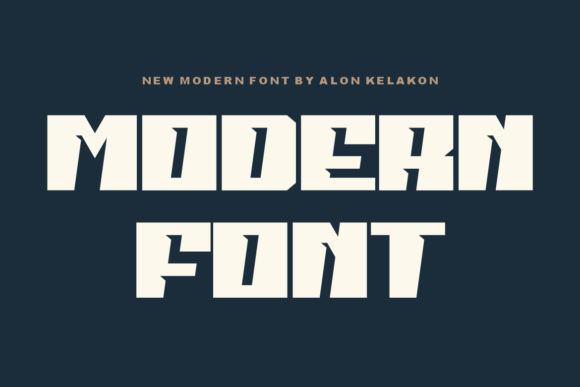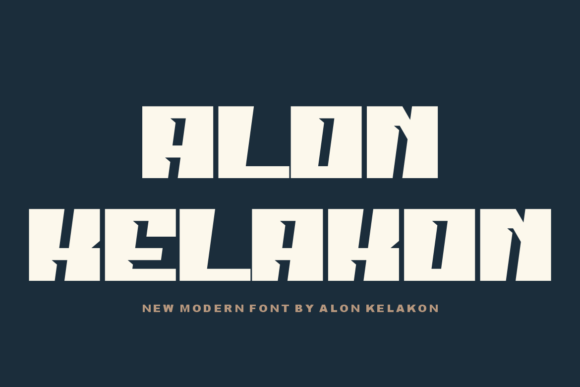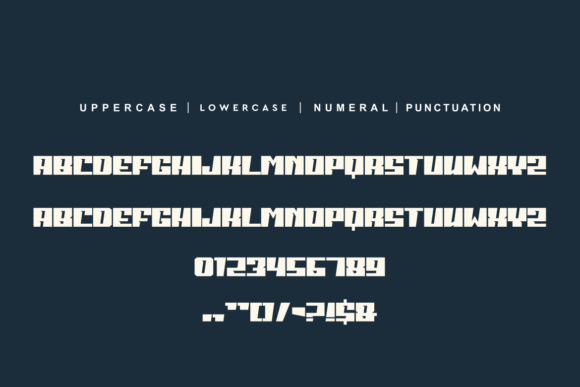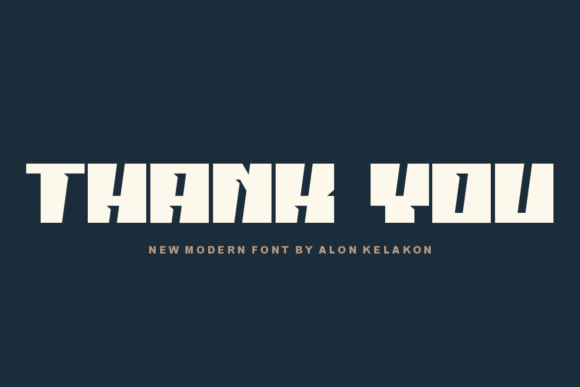
Introduction to Rasegon Font
Have you ever stared at a blank canvas, eager to bring a creative project to life, but struggling to find the perfect font to set the tone? I know the feeling. It’s like searching for a missing piece of a puzzle, and it can be frustrating.
But what if I told you that I’ve discovered a game-changing font that’s about to revolutionize your design process? Say hello to Rasegon Font, a high-quality, sans serif font that’s perfect for labeling, clothing, movie scenes, and more. With its clean and modern aesthetic, Rasegon Font is a valuable resource for designers looking to elevate their creative projects. Plus, with a transparent background, you can easily customize it to fit your design needs.
Key Features of Rasegon Font
- This font features a unique, bold style with a transparent background, allowing for versatile usage in various design applications.
- The font size is scalable, making it suitable for a wide range of applications, from small text to large headings.
- This font is ideal for graphic designers, artists, and creatives seeking a distinctive and modern design element for their projects.
Honest Review: Rasegon Font
I recently had the chance to work with the Rasegon Font, a free download that’s been making waves in the design community. As a designer, I was excited to see how it would perform on a creative project.
One of the things that stands out about the Rasegon Font is its high quality. The font is crisp and clear, making it perfect for any design resource that requires a clean and modern look. I was particularly impressed with how well it handled text on a transparent background – the font really shines in this application.
- High-quality font that’s perfect for modern designs
- Handles text on transparent backgrounds with ease
- Not as versatile as some other fonts, may not work well for more traditional designs
- Some users may find the font too minimalist, lacking in personality
Overall, I was impressed with the Rasegon Font. While it may not be the perfect font for every project, it’s a great resource for designers who want a high-quality, modern look without breaking the bank. With a little creativity, the Rasegon Font can really elevate your design projects.
Introduction to Rasegon Font
Rasegon Font is a high-quality design resource perfect for any creative project. This versatile font is ideal for graphic designers, artists, and individuals looking for a unique and creative element to enhance their work.
Rasegon Font is ideal for:
- Document design
Alternatives to Rasegon Font
Alegreya Sans is a high-quality, open-source sans-serif font ideal for creative projects that require a modern and clean look. It is available for free download and supports a wide range of languages. When to use: Alegreya Sans is perfect for digital products, websites, and magazines that need a sophisticated yet approachable design. Compared to Rasegon Font, Alegreya Sans has a more minimalist aesthetic, making it suitable for a variety of design resources.
Playfair Display is a luxurious, high-quality font that adds a touch of elegance to any design. It features a classic, sophisticated look and is suitable for creative projects that require a premium feel. When to use: Playfair Display is ideal for high-end design resources, such as luxury magazines, fashion brands, and upscale websites. Compared to Rasegon Font, Playfair Display has a more ornate and decorative design, making it perfect for adding a touch of sophistication to your creative project.